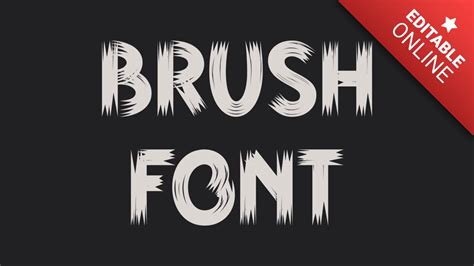
Brush Font Generator. Learn how to use brush fonts. You don't need photoshop to get a paintbrush text effect.
Learn how to use brush fonts. You don't need photoshop to get a paintbrush text effect. Web brush fonts are imitating styles written with an ink brush, creating thick, bold and elegant text effects.
Learn how to use brush fonts. Web brush fonts are imitating styles written with an ink brush, creating thick, bold and elegant text effects. Learn how to use brush fonts. You don't need photoshop to get a paintbrush text effect.